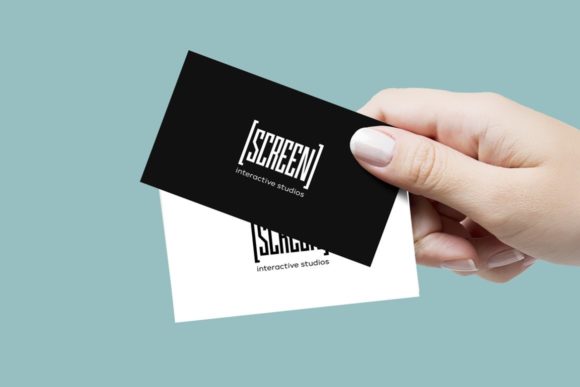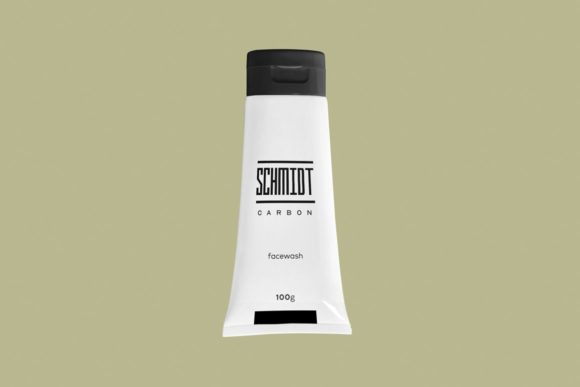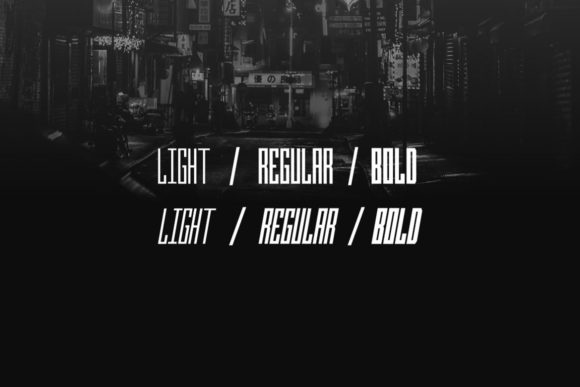
The Perfect Font for Your Next Masterpiece
Have you ever stared at a blank page, eager to bring a new idea to life, but struggling to find the right words to express it? This is where the magic happens – the moment when a great font can elevate your creation and make it truly unforgettable. For designers, finding the perfect font can be the difference between a good project and a great one.
Enter the Aston Font, a cool, robotic display font that’s about to become your new go-to. Whether you’re working on a futuristic sci-fi project, a sleek tech blog, or a bold advertising campaign, the Aston Font has the potential to elevate your design and make it stand out. With its unique blend of modernity and edginess, this font is sure to be a valuable addition to any designer’s library.
Aston Font Key Features
- Font Style: Display, Sans-Serif, with 8 weights (Light, Thin, Regular, Medium, Bold, Extra Bold, Heavy, Black)
- Language Support: Multi-language support, including Latin, Cyrillic, Greek, and Devanagari scripts
- Unique Characteristics: Aston Font features a unique blend of modern and classic design elements, with a focus on legibility and versatility
Aston Font Review
I recently had the chance to dive into the Aston Font, and I must say it’s a mixed bag. Let’s start with the good stuff.
- ✨ Unique style: Aston Font has a distinct, modern aesthetic that sets it apart from other fonts. The sans-serif design is clean and sophisticated, making it perfect for corporate branding and marketing materials.
- ✨ Excellent legibility: The font is highly legible, even at smaller sizes, which is a must for any font used in digital media.
- ⚠️ Limited font sizes: While the font looks great at larger sizes, it can appear a bit thin and washed out at smaller sizes, which may not be ideal for certain applications.
- ⚠️ Limited character set: Aston Font’s character set is not as extensive as some other fonts, which may limit its use in certain languages or applications.
Overall, I’d say the Aston Font is a solid choice for designers who are looking for a modern, clean font with excellent legibility. However, it may not be the best fit for every project, and designers should carefully consider its limitations before making a decision.
Tips for Getting the Most Out of Aston Font
Use bold and italic styles to add emphasis to your text.
Combine Aston Font with other fonts to create a unique and visually appealing design.
Experiment with different font sizes and colors to create a striking visual effect.
Aston Font is ideal for:
Headlines and titles
Brand logos and identity
Print and digital advertising
Editorial and publishing content
Alternatives to Aston FontMontserrat
Montserrat is a modern sans-serif font designed by Julieta Ulanovsky. It’s perfect for creating clean and minimalist designs. Montserrat is more geometric and condensed compared to Aston Font, making it ideal for use in titles, headings, and body text in digital interfaces.
Compared to Aston Font, Montserrat has a more futuristic feel and is better suited for modern and tech-related designs. Aston Font has a more elegant and refined look, making it more suitable for luxury and high-end designs.
Lato is a sans-serif font designed by Łukasz Dziedzic. It’s a versatile font that works well in both print and digital designs. Lato is more rounded and friendly compared to Aston Font, making it ideal for use in corporate and business designs.
Compared to Aston Font, Lato has a more approachable feel and is better suited for designs that require a sense of warmth and friendliness. Aston Font has a more formal and professional look, making it more suitable for high-end and luxury designs.